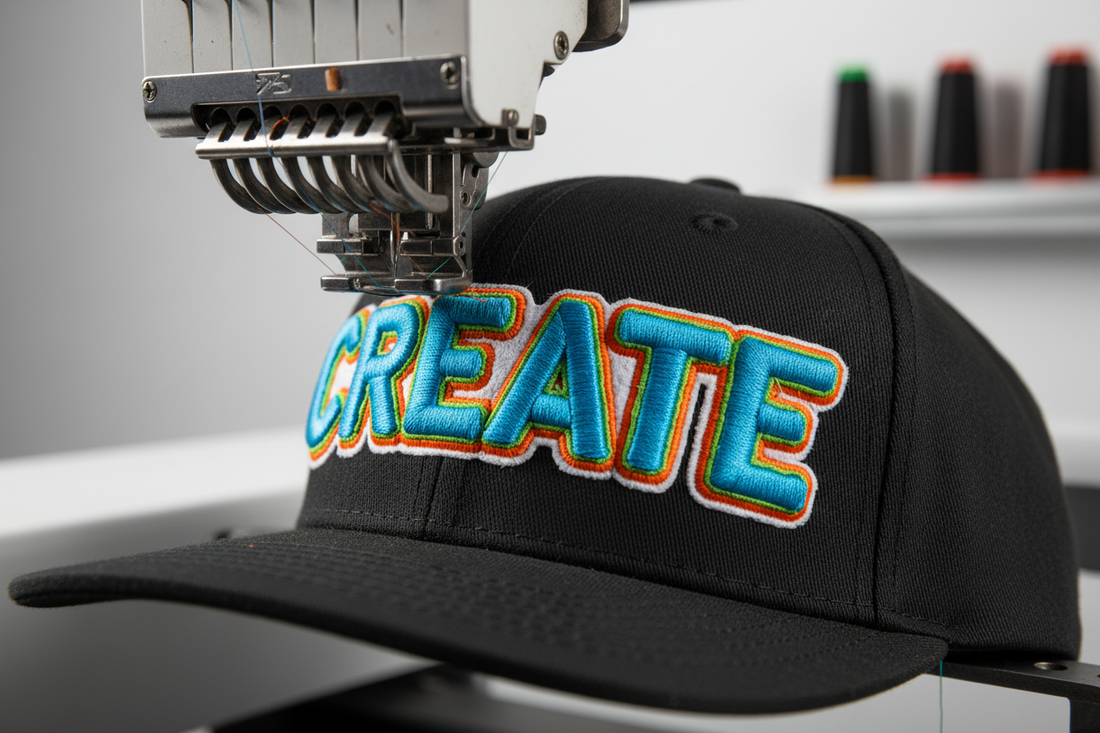
What Is 3D Puff Embroidery?
3D puff embroidery is a technique that creates a raised, three-dimensional effect on fabric. Unlike standard flat embroidery, puff embroidery uses a foam underlay beneath the stitches, giving letters and designs a bold, tactile appearance that stands out on caps, hats, jackets, and apparel.
It's one of the most popular techniques in the headwear industry — you've seen it on snapbacks, dad hats, and premium streetwear brands. The result is a premium, eye-catching look that flat embroidery simply can't replicate.
How Does 3D Puff Embroidery Work?
- Place the foam: A thin sheet of puff foam is placed on top of the fabric before stitching begins.
- Stitch over the foam: The embroidery machine stitches directly over the foam, compressing it in some areas and leaving it raised in others.
- Tear away excess foam: After stitching, the excess foam around the design is carefully torn away, leaving only the raised embroidered area.
Best 3D Puff Embroidery Fonts
Not all fonts are suitable for 3D puff embroidery. You need fonts that are specifically digitized for puff technique — with the right underlay, density, and letter sizing. Here are our top picks from Embroidery Sky's 3D puff font collection:
Varsity 3D Puff Embroidery Font
A bold athletic-style font perfect for sports teams, caps, and varsity jackets. Digitized specifically for 3D puff foam with higher stitch density and underlay. Available in BX, PES, DST and more.
Team 3D Puff Embroidery Font
Engineered for team names, numbers, and logos on uniforms and gear. Strong, sporty letterforms that rise up in impressive dimension when stitched over puff foam.
Algerian 3D Puff Embroidery Font
A striking decorative font with ornate detailing — a standout choice for snapback hats, beanies, and streetwear apparel.
Lauren 3D Puff Embroidery Font
A flowing script font with elegant curves, perfect for personalized gifts, monograms, and fashion apparel. Digitized specifically for 3D puff with smooth stitch transitions.
Wedding 3D Puff Embroidery Font
Designed for wedding and bridal applications — monograms, tote bags, robes, and gifts. The refined letterforms look stunning in puff on structured fabric.
Tips for Perfect 3D Puff Embroidery
- Minimum letter height: Use letters at least 0.75 inches tall for clean puff results — smaller letters won't hold the foam well
- Use the right foam: 3mm puff foam is standard for most cap and apparel applications
- Slow your machine speed: Run at 600–700 SPM for better control and cleaner edges
- Sharp needle: Use a sharp or embroidery needle (75/11 or 80/12) to pierce the foam cleanly
- Test first: Always run a test stitch on scrap fabric before production